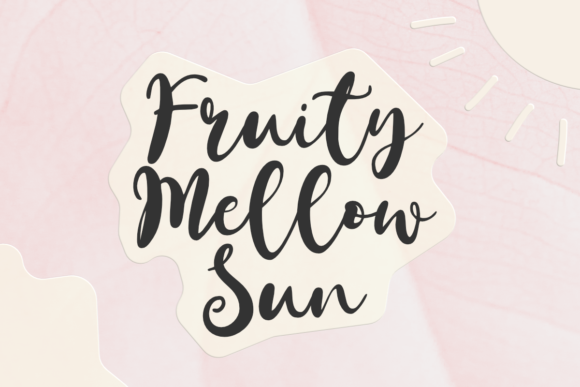
About Fruity Mellow Sun Font
Fruity Mellow Sun is a lovely script font featuring charming, playful characters that seem to dance along the baseline. Add this font to your most creative ideas, and notice how it makes them stand out!